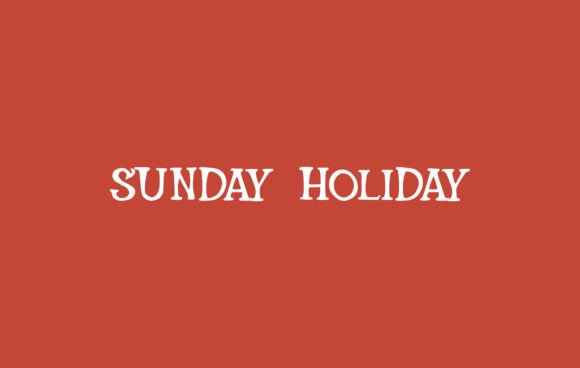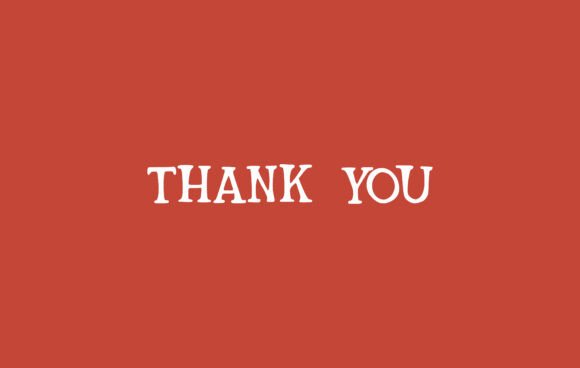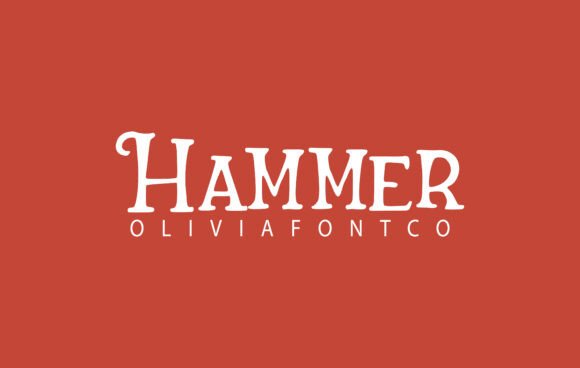
Introducing Hammer Font: The Ultimate Handwritten Font for Creative Expression
Are you tired of using the same old fonts for your designs? Look no further! Hammer font is an authentic handwritten font that adds a romantic touch to any project. With its unique and elegant style, this font is sure to become a true favorite among designers and crafters. In this article, we’ll explore the features and benefits of Hammer font, and how it can elevate your creative ideas to new heights.
What is Hammer Font?
Hammer font is a carefully crafted handwritten font that exudes a sense of romance and sophistication. Its authentic and natural look makes it perfect for a wide range of design applications, from magazine headlines to social media graphics, branding, wedding invitations, and more. The font’s legibility and versatility make it an excellent choice for both title and body text.
Key Features of Hammer Font
- Authentic Handwritten Style: Hammer font boasts a genuine handwritten look that adds a personal touch to your designs.
- Romantic Touch: The font’s elegant and flowing lines evoke a sense of romance and sophistication.
- Legible and Versatile: Hammer font is perfect for both title and body text, making it a great choice for a wide range of design applications.
- Easy to Read: The font’s clear and concise design ensures that your text is easy to read, even at small sizes.
Benefits of Using Hammer Font
So, why choose Hammer font for your next design project? Here are just a few benefits of using this amazing font:
- Adds a Personal Touch: Hammer font’s handwritten style adds a personal and human touch to your designs, setting them apart from the rest.
- Enhances Creativity: The font’s unique and elegant style inspires creativity and imagination, helping you to come up with innovative design solutions.
- Perfect for Branding: Hammer font is an excellent choice for branding, as it adds a touch of sophistication and elegance to your logo and marketing materials.
- Great for Wedding and Event Designs: The font’s romantic and elegant style makes it perfect for wedding invitations, event graphics, and other special occasion designs.
Design Ideas Using Hammer Font
So, how can you use Hammer font in your designs? Here are a few ideas to get you started:
- Magazine Headlines: Use Hammer font to create eye-catching headlines and titles for your magazine or blog.
- Social Media Graphics: Add a touch of elegance to your social media graphics with Hammer font.
- Wedding Invitations: Create beautiful and romantic wedding invitations with Hammer font.
- Branding and Logo Design: Use Hammer font to add a touch of sophistication to your logo and branding materials.
- Crafting and DIY Projects: Hammer font is perfect for crafting and DIY projects, such as making cards, gift tags, and other handmade items.
In conclusion, Hammer font is an amazing handwritten font that adds a romantic touch to any design project. With its authentic and natural look, legibility, and versatility, this font is sure to become a favorite among designers and crafters. Whether you’re working on a magazine headline, social media graphic, wedding invitation, or crafting project, Hammer font is the perfect choice. So why wait? Download Hammer font today and take your creative ideas to new heights!